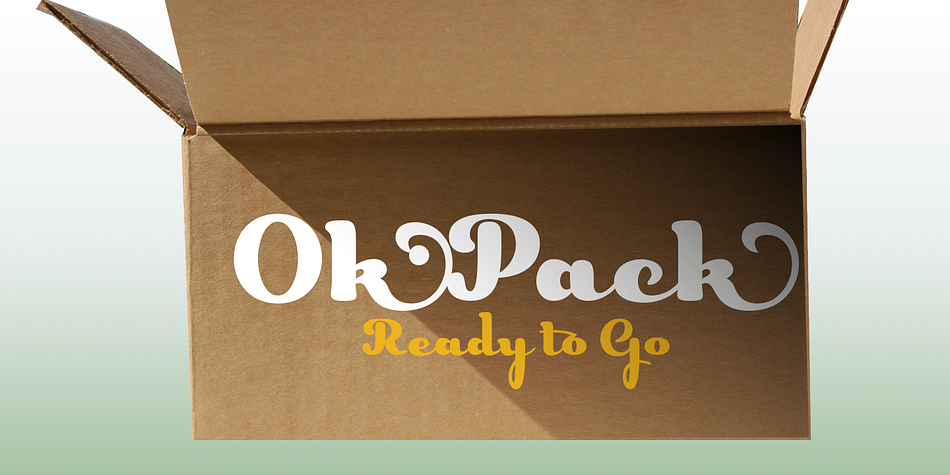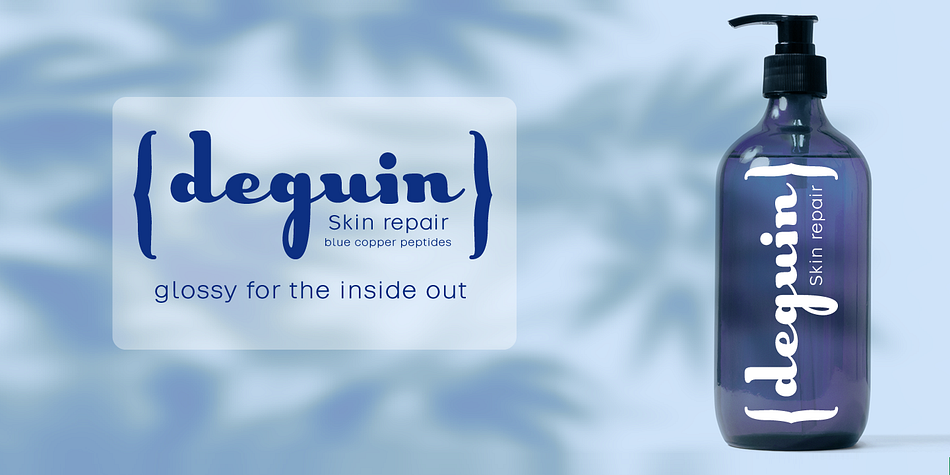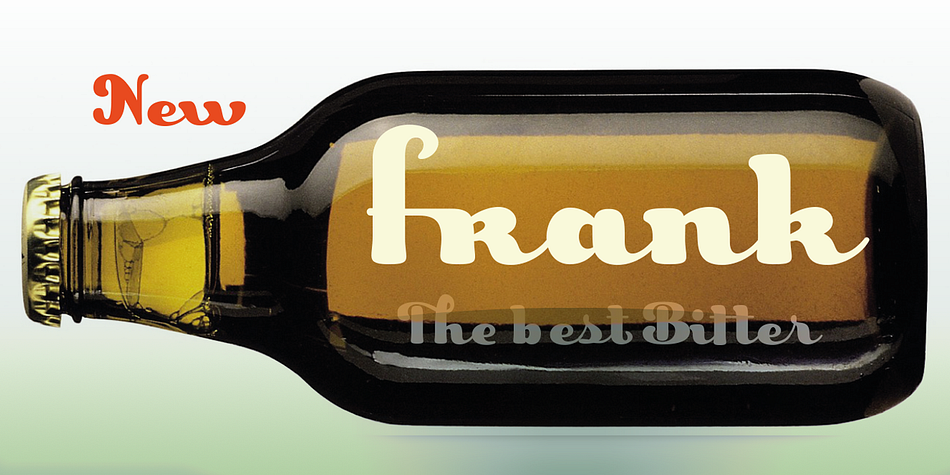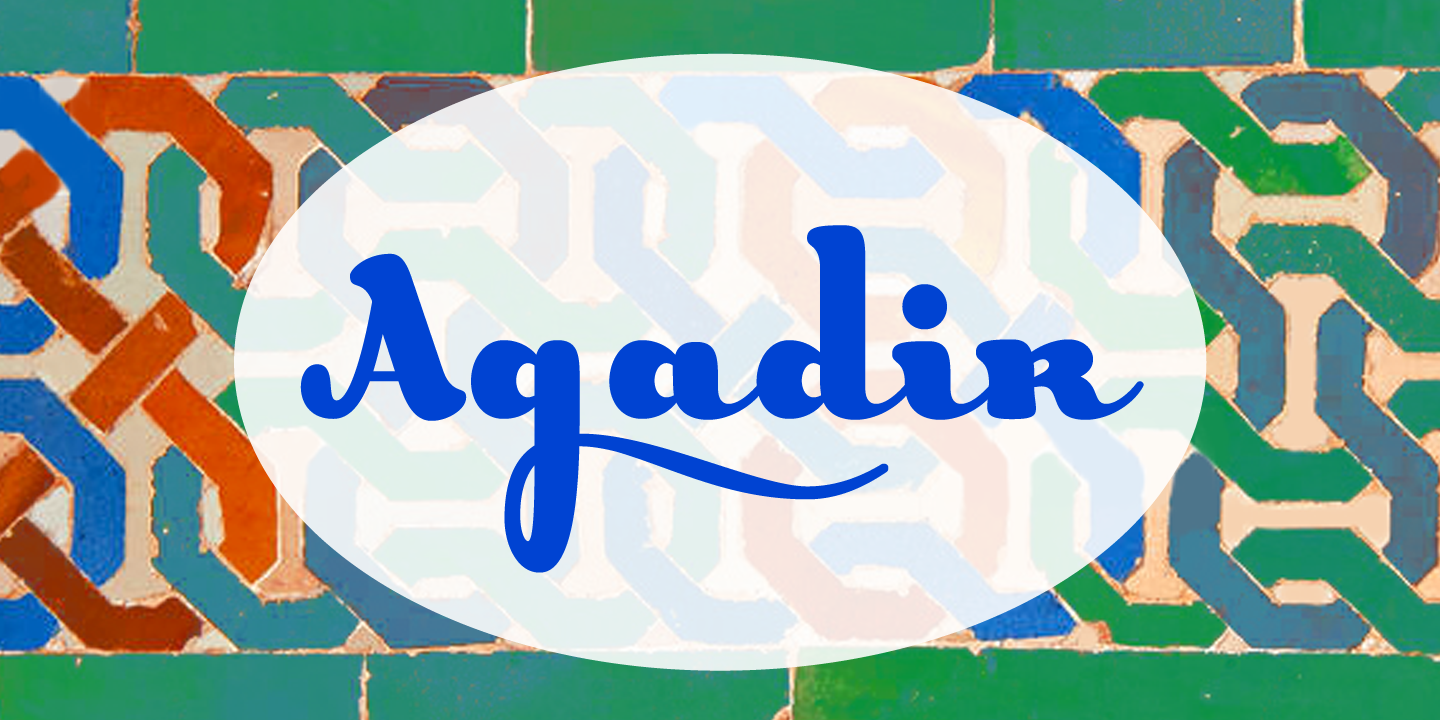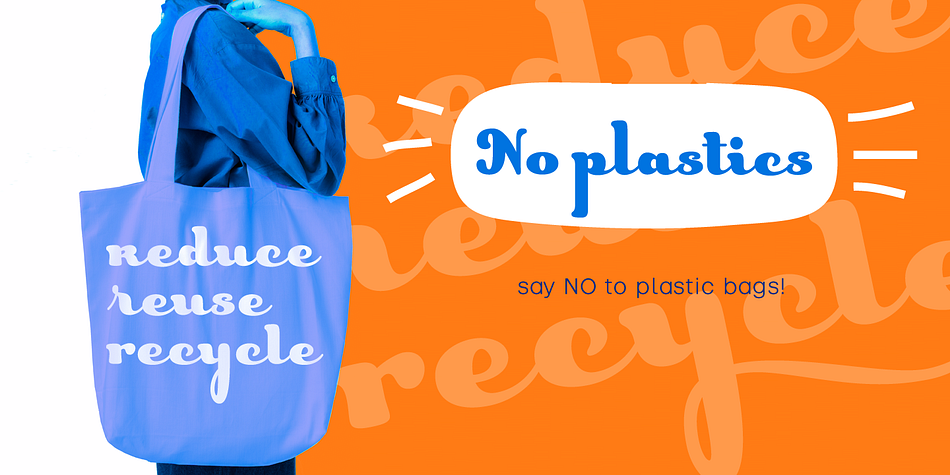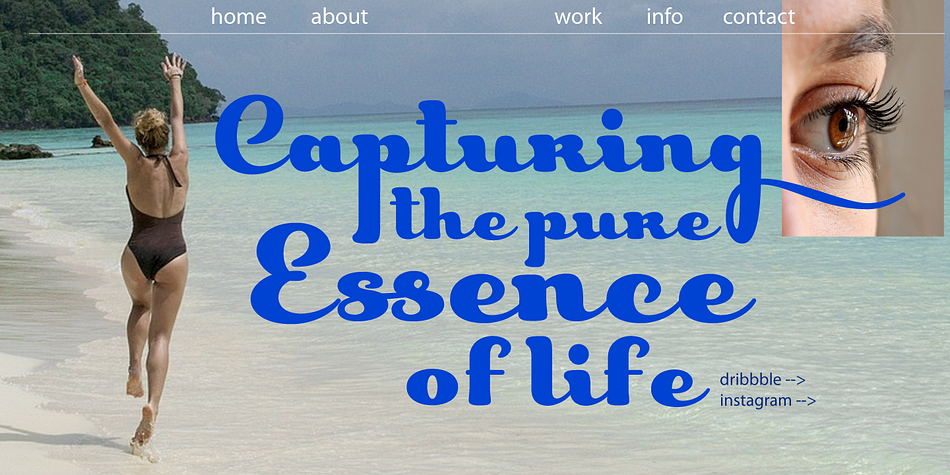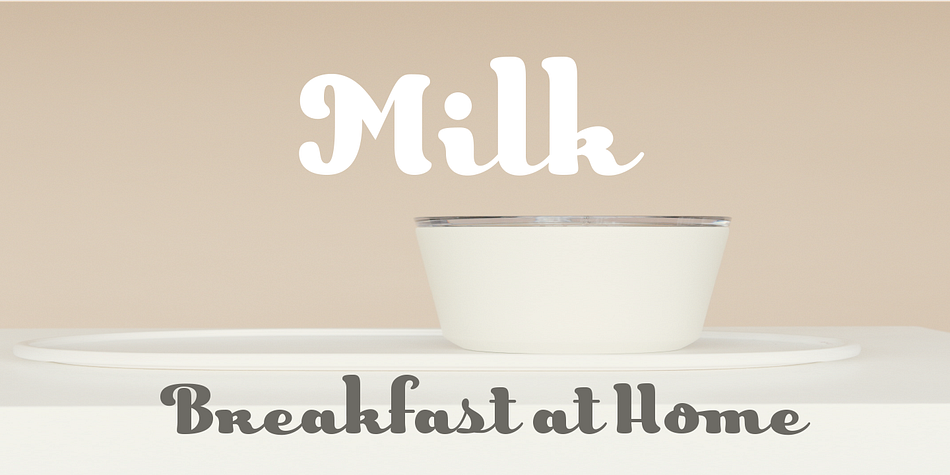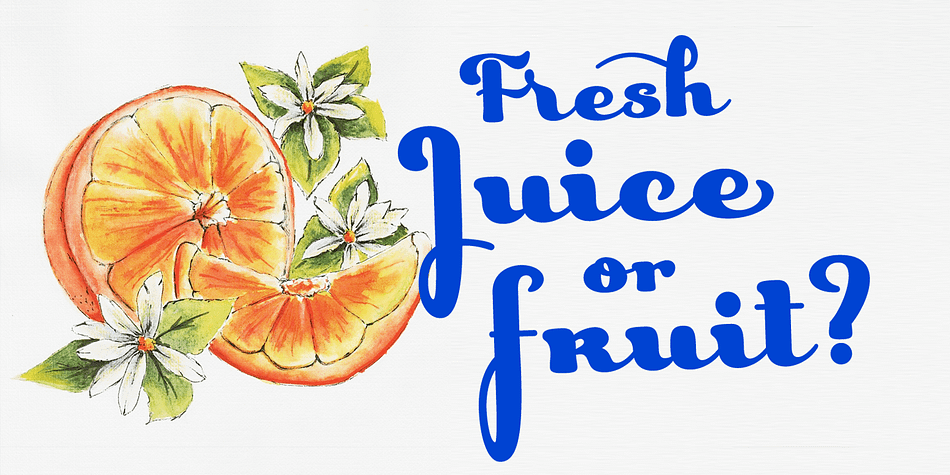
Agadir
Designed by Carine de Wandeleer, Agadir is a brush script, retro and script font family published by Eurotypo.
Agadir is a font inspired by a logo of the ‘60s. Its fundamental characteristic is that it is regular, with the possibility of choosing between ascending and descending of two different lengths.
Agadir font is the perfect mix of elegant and casual.
The Open Type features include standard and contextual alternates, swatches, stylistic sets, ligatures. All this makes the text lively and bouncy, without the monotony of obviously repeated letterforms.
Agadir looks good in children’s books, book covers, magazines, logos, fashion, restaurant menus, packaging, wedding invitations, greeting and business cards and where you want it.
Designer Carine de Wandeleer